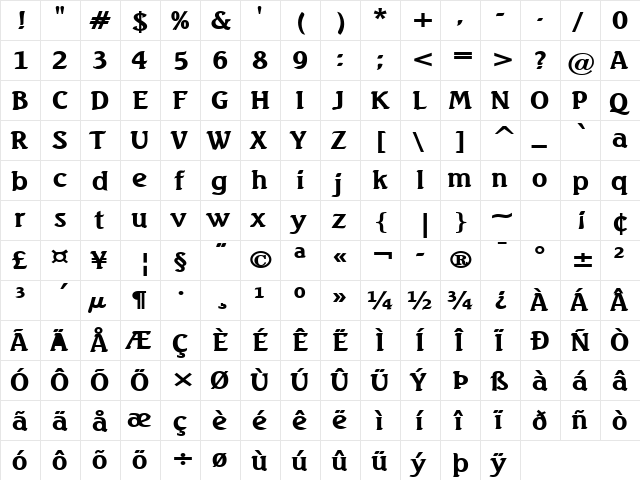
Beach-Extended Bold
Design Context for Beach-Extended Typeface
Beach-Extended is a composed and adaptable typeface that performs quietly and consistently across a wide range of design contexts. Its bold stroke weight gives it real presence on the page.